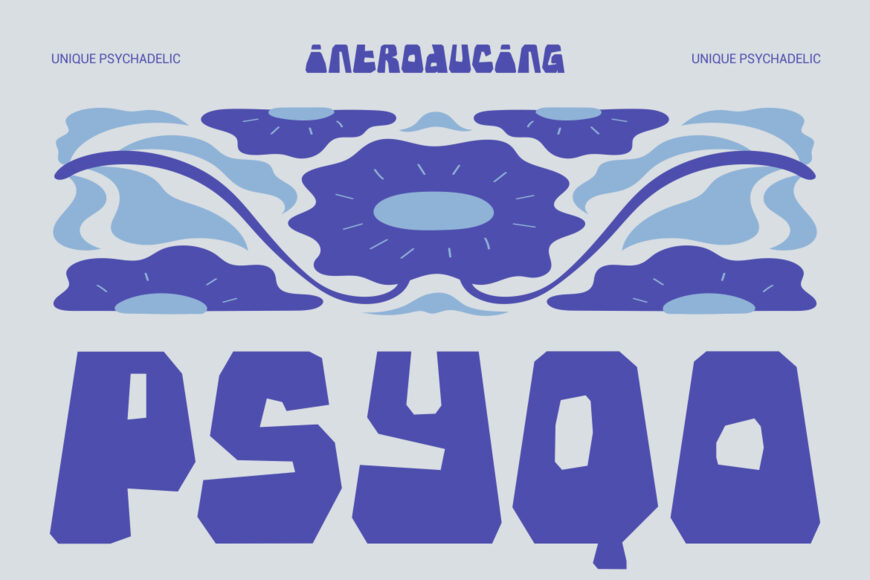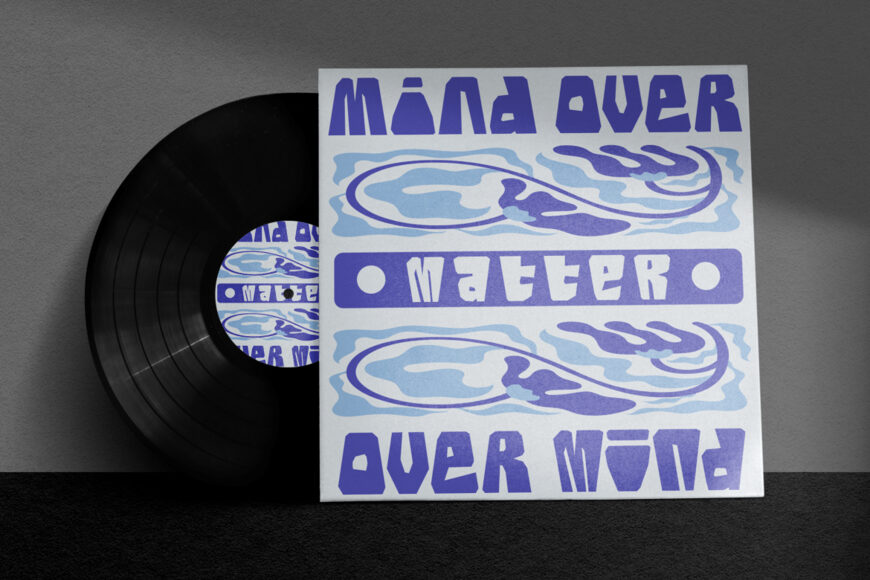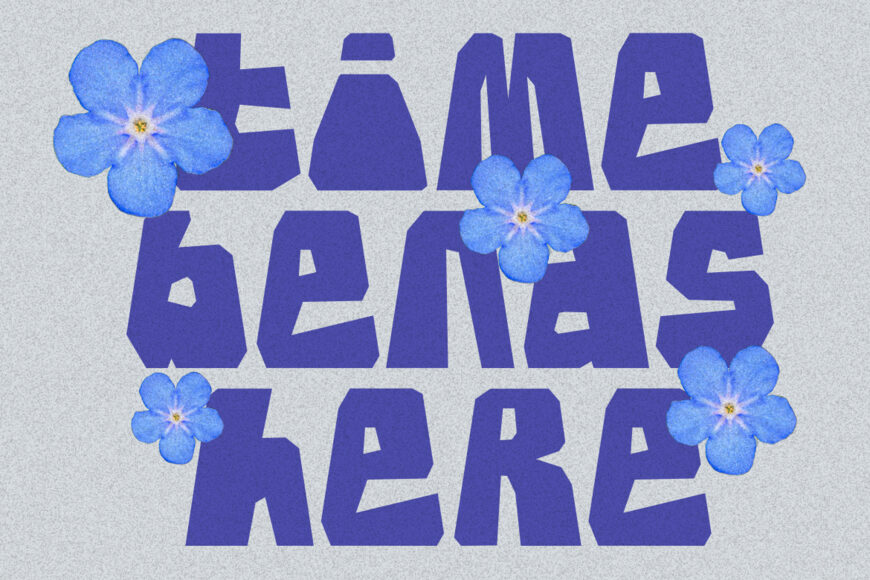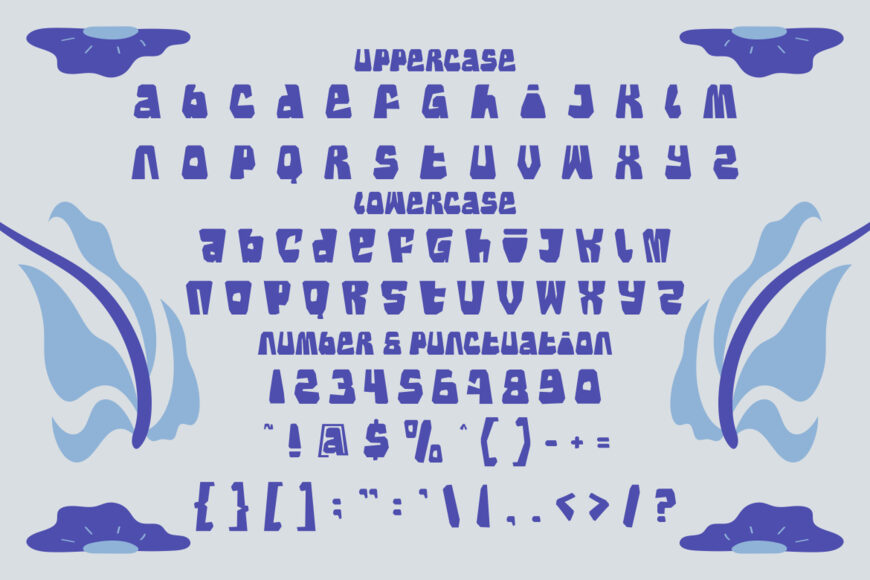
Psyqo is a bold display typeface with an unmistakably experimental edge. Its letterforms combine thick, block-like structures with irregular geometric cuts, sharp angles, asymmetric counters, and unconventional proportions. Angular terminals and carved interior shapes introduce a handcrafted psychedelic feel.
Blending retro psychedelic influences with contemporary graphic strength, Psyqo is ideal for music branding, creative studios, and experimental product identities. It adds personality to logos, album artwork, event posters, and attention-grabbing headlines.